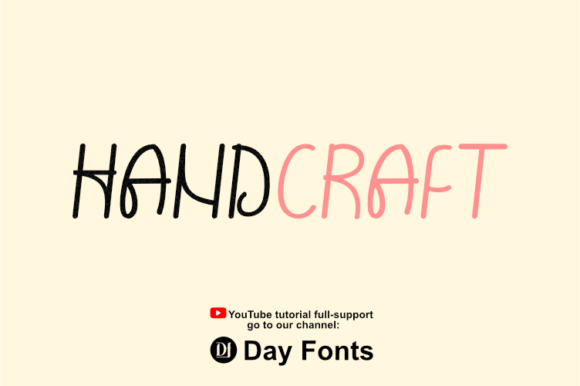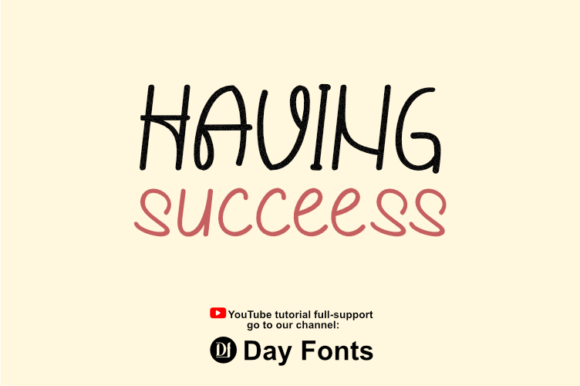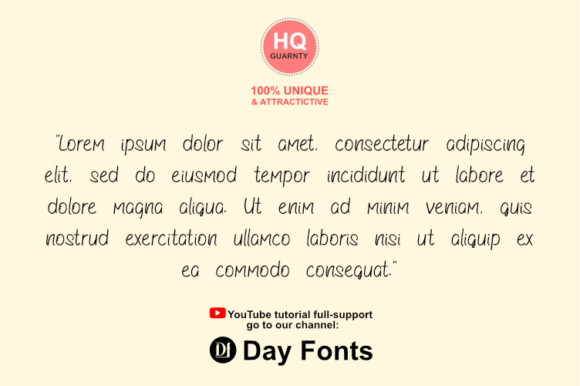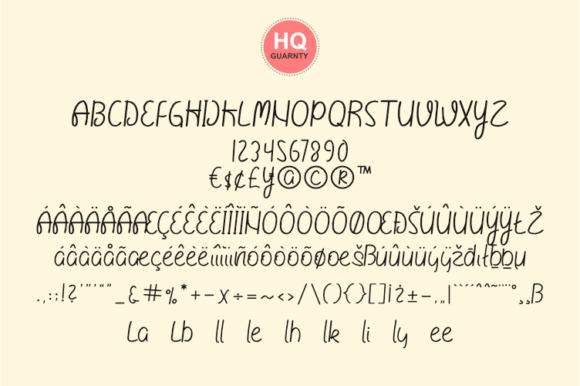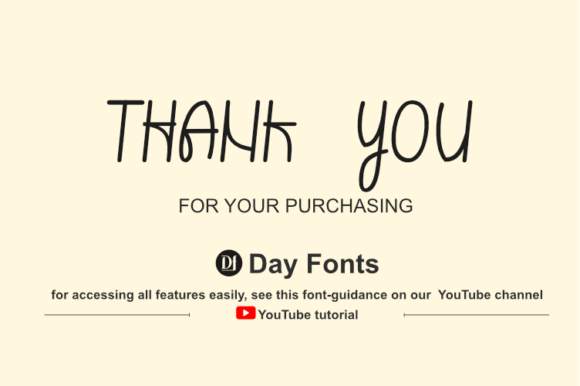
Introducing Handywritten: The Cute and Simple Lettered Handwritten Font for Designers and Crafters
Are you a designer or crafter looking for a font that can add a personal touch to your designs? Look no further than Handywritten, a cute and simple lettered handwritten font that’s perfect for chalkboard quotes, teaching materials, and more. With its authentic look, Handywritten can help you create designs that feel realistic and engaging.
What is Handywritten?
Handywritten is a carefully crafted handwritten font that’s designed to mimic the look of handwritten text on a chalkboard. Its simple and cute lettering style makes it perfect for a wide range of design projects, from educational materials to social media graphics. Whether you’re a teacher, designer, or crafter, Handywritten is a versatile font that can help you create beautiful and effective designs.
Key Features of Handywritten
- Cute and Simple Lettering Style: Handywritten features a clean and simple lettering style that’s easy to read and understand.
- Authentic Look: The font’s authentic look makes it perfect for creating designs that feel realistic and engaging.
- Perfect for Chalkboard Quotes: Handywritten is specifically designed for chalkboard quotes, making it a great choice for teachers, educators, and designers who want to create eye-catching quotes.
- Versatile: The font can be used for a wide range of design projects, from educational materials to social media graphics.
Benefits of Using Handywritten
So why choose Handywritten for your design projects? Here are just a few benefits of using this versatile font:
- Adds a Personal Touch: Handywritten’s handwritten style adds a personal touch to your designs, making them feel more relatable and engaging.
- Easy to Read: The font’s simple lettering style makes it easy to read and understand, even for younger audiences.
- Time-Saving: With Handywritten, you can create professional-looking designs in no time, saving you time and effort.
How to Use Handywritten
Using Handywritten is easy! Here are a few tips to get you started:
- Pair it with Other Fonts: Handywritten pairs well with other fonts, so feel free to experiment with different combinations to find the perfect look for your design.
- Use it for Headings and Titles: Handywritten is perfect for headings and titles, where its handwritten style can add a touch of personality to your design.
- Experiment with Colors: Handywritten looks great in a variety of colors, so don’t be afraid to experiment and find the perfect color scheme for your design.
| Author | Prast Art |
In conclusion, Handywritten is a versatile and easy-to-use font that’s perfect for designers and crafters who want to add a personal touch to their designs. With its cute and simple lettering style, authentic look, and cost-effective pricing, Handywritten is a great choice for a wide range of design projects. So why wait? Download Handywritten today and start creating beautiful, engaging designs that will capture your audience’s attention!